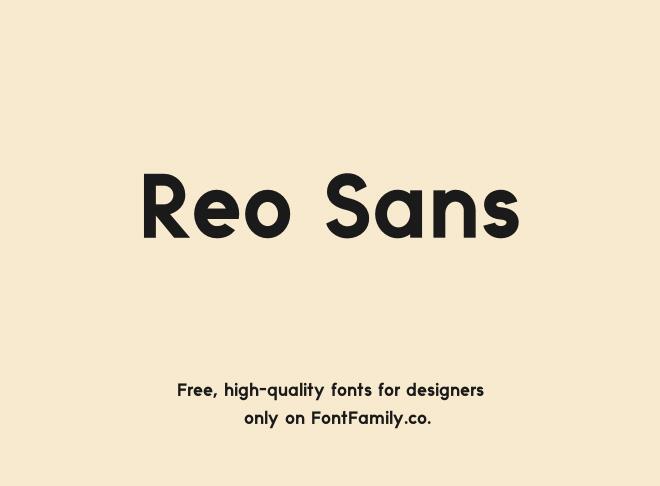
Reo Sans Font
Reo Sans Font is a modern, geometric, and minimal sans-serif typeface designed by Foundry Co. Its clean lines and balanced proportions make it a versatile choice for a wide range of applications, from digital design to print. Compared to other sans serif fonts, Reo Sans stands out with its unique character shapes and even stroke width, offering a fresh take on the classic sans serif style. Its simplicity and legibility make it a great choice for both body text and headlines. Whether you're designing a sleek website, a professional logo, or an elegant print, Reo Sans Font can elevate your design with its subtle sophistication and modern charm. Its open font license makes it free to use, making it an excellent choice for designers on a budget.